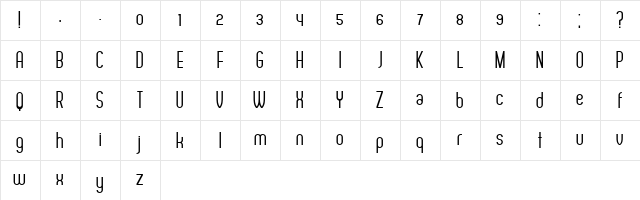
Adelino Light
Design Context for Adelino Typeface
Adelino is a composed and adaptable typeface that performs quietly and consistently across a wide range of design contexts. The delicate stroke weight brings airiness and refinement to layouts.